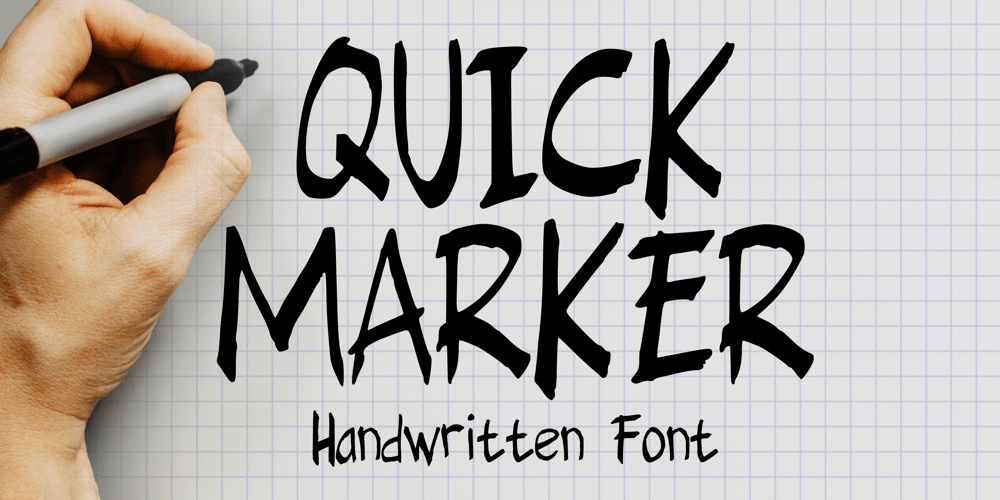
Quick Marker Font Family was designed by Gabriel Valentinus and published by Mvmet. Quick Marker contains 1 styles and family package options. Quick Marker is a quick handwritten skinny font that you can use it for anything ranging from t-shirts, book designs, packaging, and greeting cards to stickers and posters, or anything that needs a casual touch, it will be your perfect font to pick. Fall in love with its incredibly versatile style, and use it to create lovely designs!